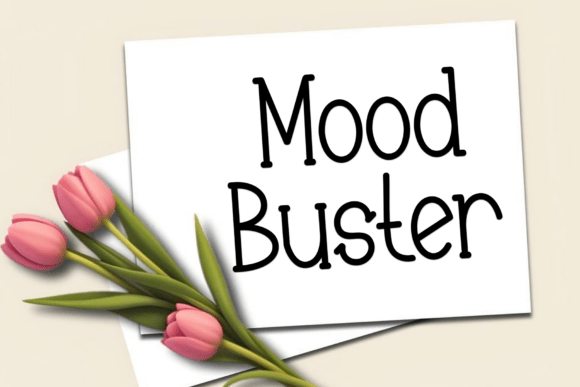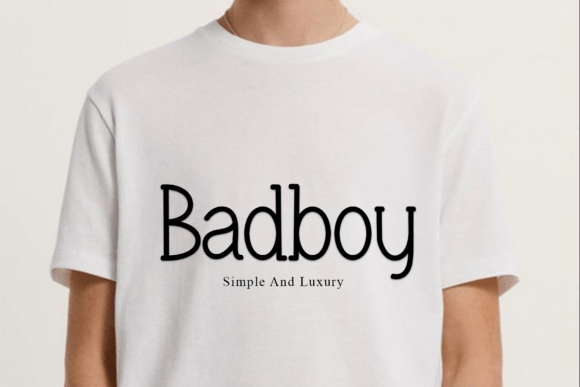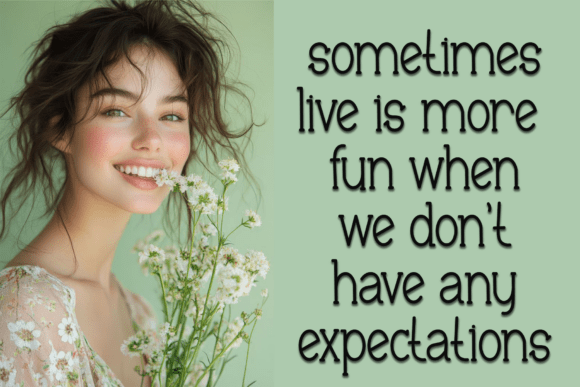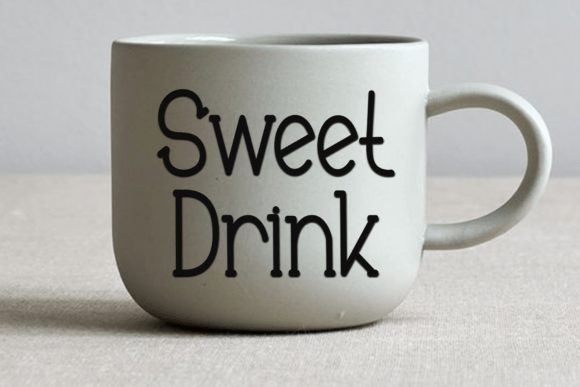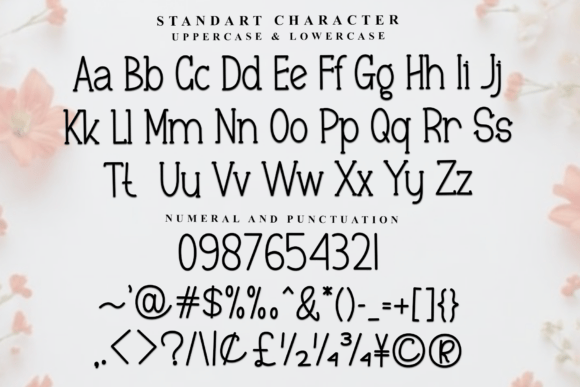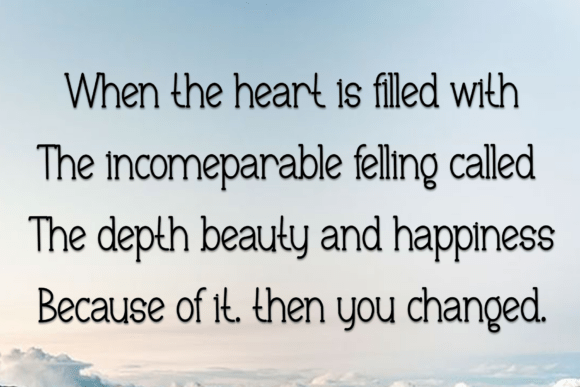
Surf’s Up: Unleashing the Magic of Beach Vibes Font
Do you remember that moment when you stumbled upon the perfect beachside spot, surrounded by crystal-clear waters and warm sunshine? The feeling of relaxation and joy that washes over you is exactly what Beach Vibes Font is all about.
Designed to evoke the carefree spirit of a beach vacation, this casual and creative font is perfect for personal projects, invitations, and social media graphics that demand a relaxed and approachable feel. With its charming, hand-drawn aesthetic, Beach Vibes Font adds a fun and unique touch to any design, making it a valuable asset for designers looking to create engaging and memorable visual content.
Beach Vibes Font Key Features
- Unique Characteristics: Beach Vibes Font features a unique, hand-drawn style with a mix of script and sans-serif elements, giving it a fun and laid-back feel.
Beach Vibes Font Review
I’ve had the chance to work with Beach Vibes Font, and I’m excited to share my honest review with you. ✨ One of the things that works well is its ability to evoke a carefree, summery feel. The font is perfect for projects that require a relaxed, beachy vibe – think summer catalogs, beach vacation ads, or even a fun logo for a surf shop.
Another thing I love about Beach Vibes is its versatility. ✨ It’s available in a range of weights, from light to bold, which makes it easy to use in a variety of contexts. The font also includes a range of fun, decorative elements, like palm trees and waves, that can add a playful touch to your designs.
- ⚠️ The font may be too playful for more serious projects, like business reports or technical documentation.
- ⚠️ Some users may find the font’s bold weights a bit too ornate or distracting.
- ⚠️ The font’s decorative elements can be a bit hit-or-miss – they may work beautifully in some contexts, but look out of place in others.
All in all, I think Beach Vibes Font is a great choice for projects that require a fun, summery feel. While it may not be the best fit for more serious or technical projects, it’s perfect for anything that needs a relaxed, beachy vibe. With its range of weights and decorative elements, it’s a versatile font that’s sure to add a touch of personality to your designs.
Tips for Getting the Most Out of Beach Vibes Font
To get the most out of the Beach Vibes Font, consider the following tips:
– Use the font in conjunction with pastel colors and beach-themed graphics for a cohesive look.
– Apply the font to headings and titles for emphasis.
– Experiment with different font sizes and styles to create visual interest.
– Use the font in a variety of contexts, from social media graphics to print materials.
The Beach Vibes Font is commonly used in the following contexts:
– Beach-themed branding and marketing materials.
– Summer